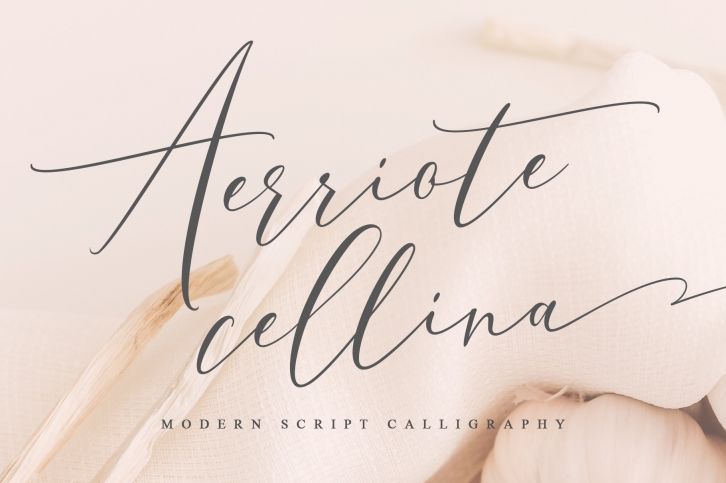
Aerriote Cellina is a chic, trendy script font that emanates confidence and versatility. Its stylish alternates and ligatures make this font the perfect match for any project.